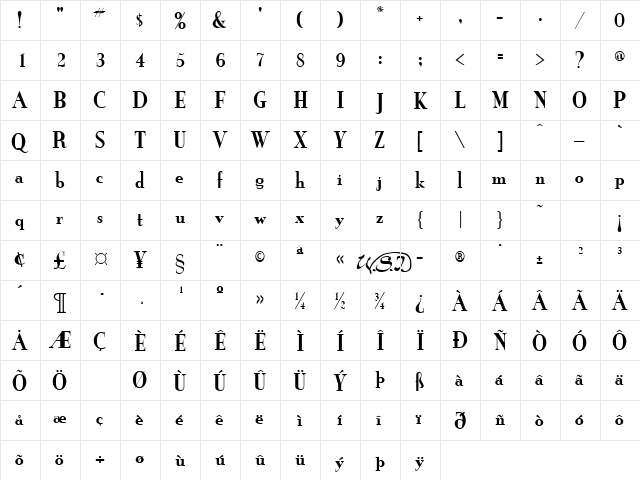
Grail-New Condensed Regular
Design Context for Grail-New Condensed Typeface
Grail-New Condensed offers clean, dependable letterforms without strong stylistic allegiance, making it a practical choice for designers who need flexibility. The condensed width makes it efficient for tight spaces without sacrificing legibility.